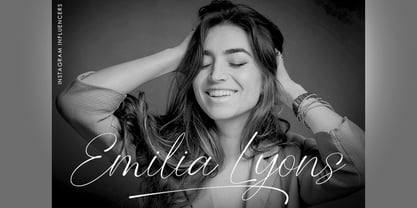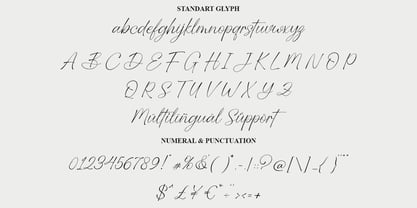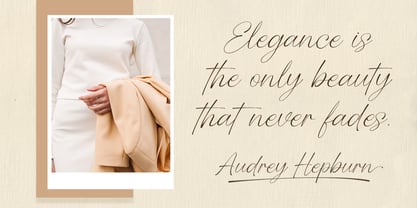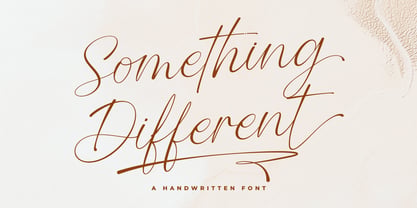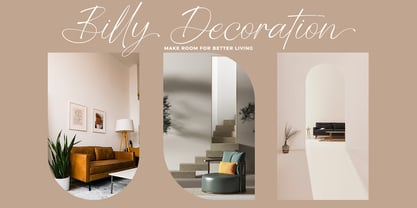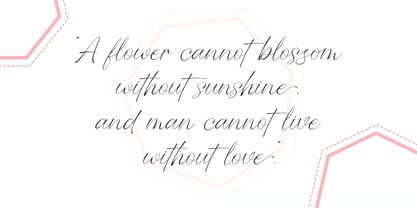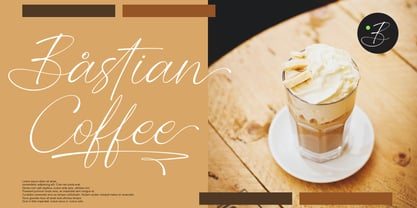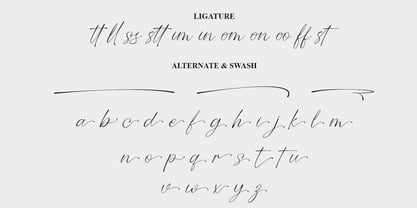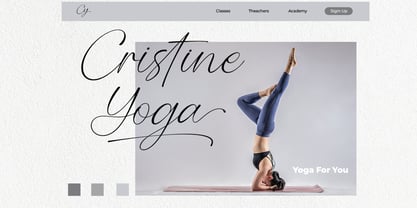
Something Different
by Sugeng Hariyanto
The Something Different Font Family was designed by Sugeng Hariyanto and published by Sugeng Hariyanto. Something Different contains 1 styles. More about this family
Introducing "Something Different," an exquisite handwritten font that seamlessly blends elegance with a unique charm. This meticulously crafted font adds a touch of sophistication to your design projects, making it perfect for a variety of applications, including brochures, product designs, websites, and more. Embrace the distinctiveness of "Something Different" as it reveals a beautiful and majestic character, setting it apart as a standout addition to your font collection. The handwritten style exudes a personal and authentic feel, enhancing the visual appeal of your creations. Incorporating "Something Different" into your design arsenal opens up a realm of creative possibilities, ensuring compatibility with various design software. Explore the versatility of your designs with alternative characters, ligatures, and swashes that add depth and character to your typography. Whether you're working on branding, print materials, or digital platforms, "Something Different" promises to infuse a distinctive flair into your projects, leaving a lasting impression on your audience. Elevate your design game with this handwritten font, where each stroke tells a story of creativity and individuality.
Designers: Sugeng Hariyanto
Foundry: Sugeng Hariyanto
Sugeng Hariyanto is an independent type foundry based in Indonesia, dedicated to creating original and high-quality fonts that blend artistry and functionality. With over seven years of experience in type design, the foundry focuses on producing expressive handwritten and elegant script typefaces that bring personality and authenticity to every creative project. Each font is carefully crafted to meet professional design needs while maintaining a distinctive, handcrafted touch.